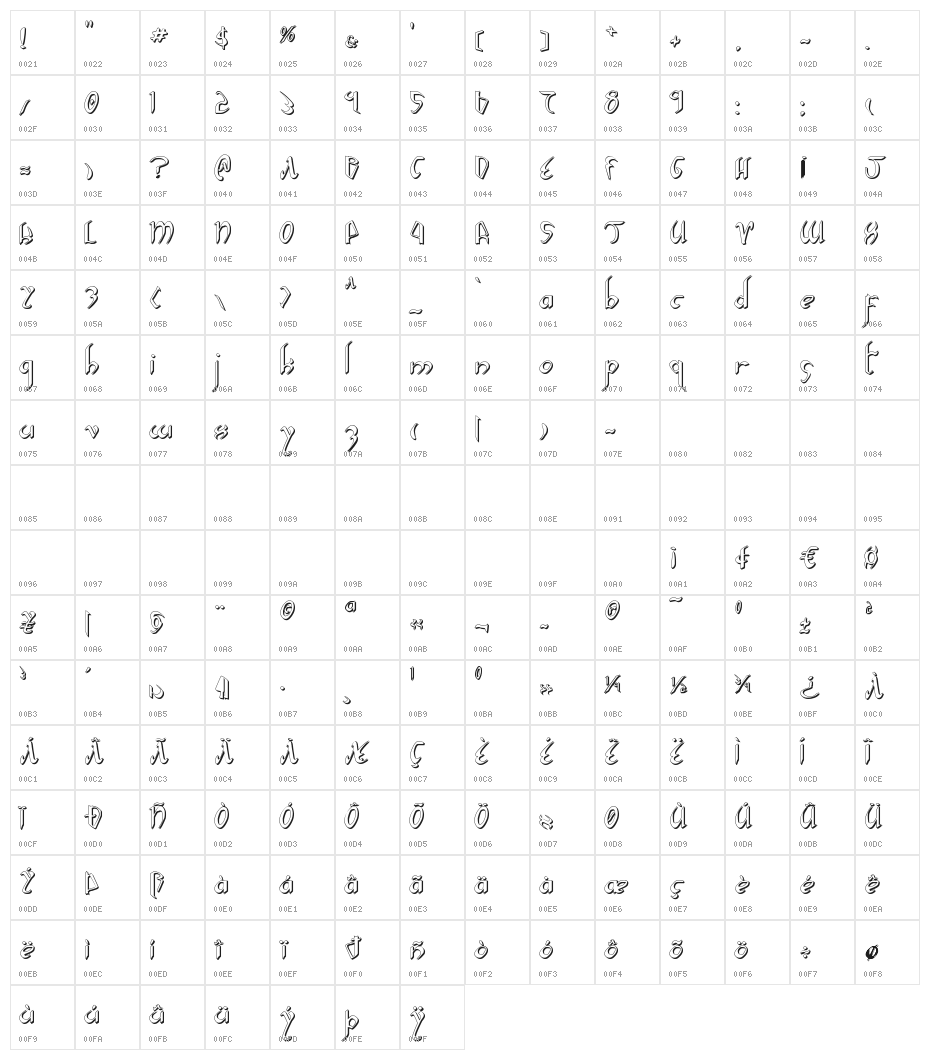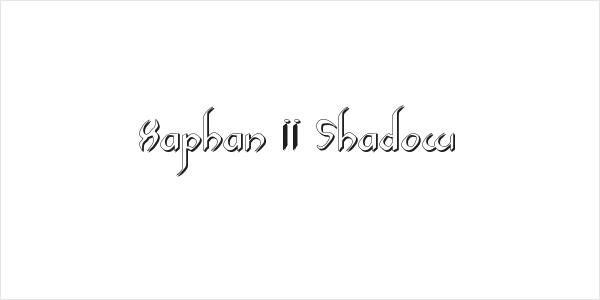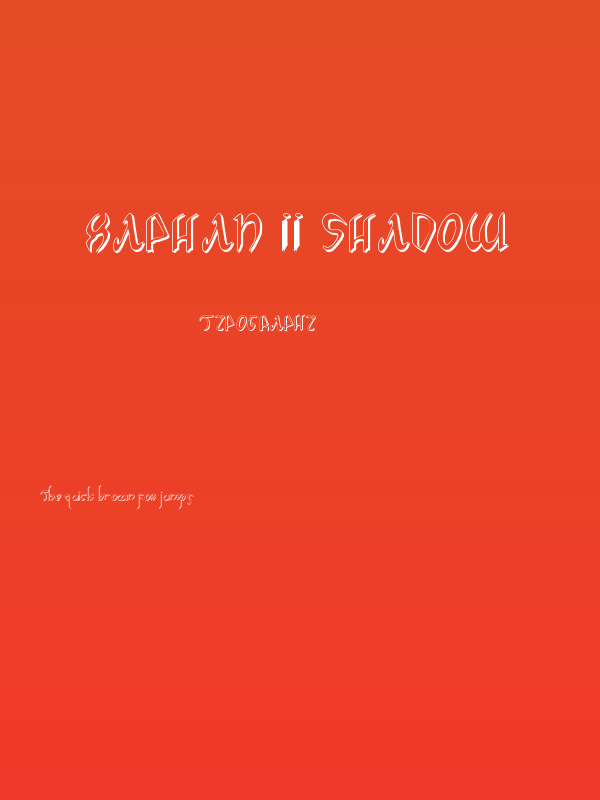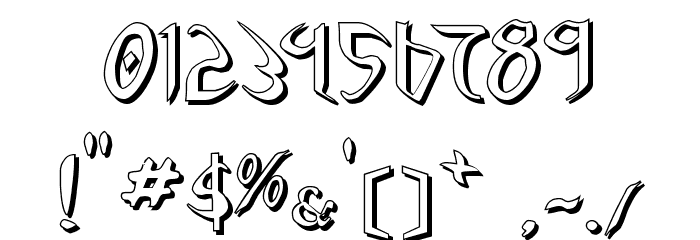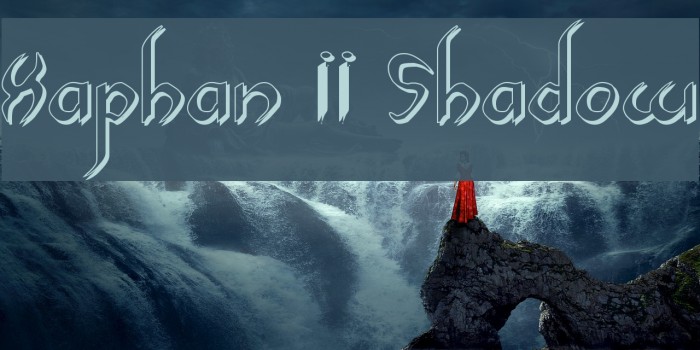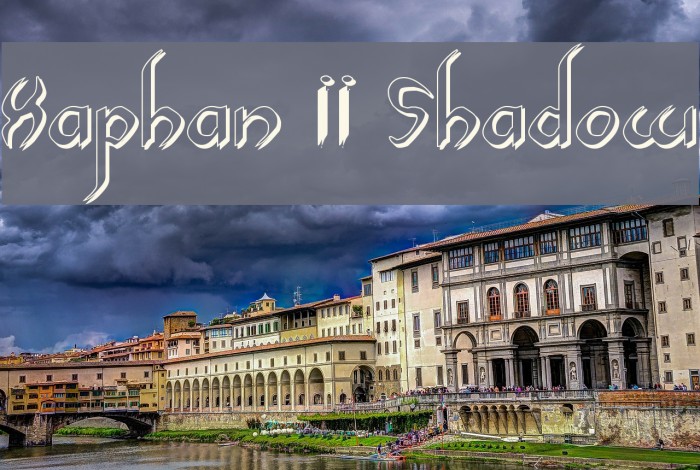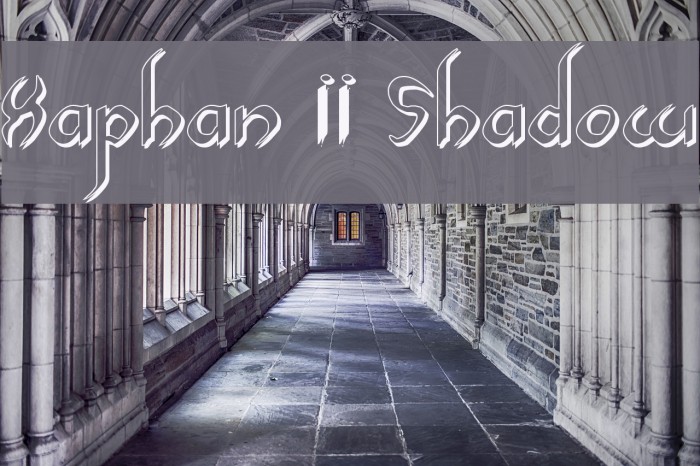
Xaphan II Shadow Font
Xaphan II Shadow Description
This font features a bold and dramatic style with a shadow effect that gives it a three-dimensional appearance. The characters are designed with sharp, angular lines and a distinct Gothic influence, making it stand out with a unique flair. The uppercase letters are particularly striking, with exaggerated serifs and a sense of movement. The lowercase letters maintain the same angular style, ensuring consistency throughout the typeface. Numbers and special characters are crafted with the same attention to detail, making them suitable for various design applications. The shadow effect adds depth, enhancing the visual impact of the text.
Fonts by Daniel Zadorozny - www.iconian.com
| Overall Style | Gothic, Decorative |
| Proposed Projects | Ideal for projects requiring a bold statement, such as posters, album covers, or branding for edgy or alternative brands. |